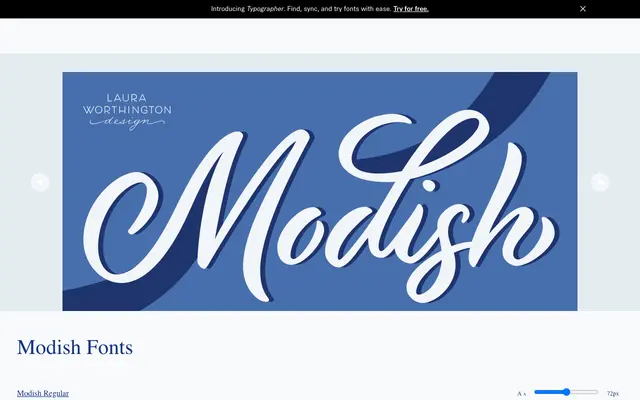
Modish
A casual ink-style script with 270 swashes and 78 stylistic alternates, aimed at packaging, menus and retail branding.
Balancing a hand-drawn feel with digital precision, Modish offers both connected and unconnected letterform options through its extensive set of contextual alternates and stylistic sets. The single Regular style includes 43 ligatures and titling capitals, and the OpenType features are coded to work without professional design software. Broad Latin Extended language support covers over 25 languages across Central and Northern Europe.
A hand-drawn casual script with ink-style strokes and extensive swash and alternate glyph sets, designed to mimic natural handwriting while remaining digitally polished.